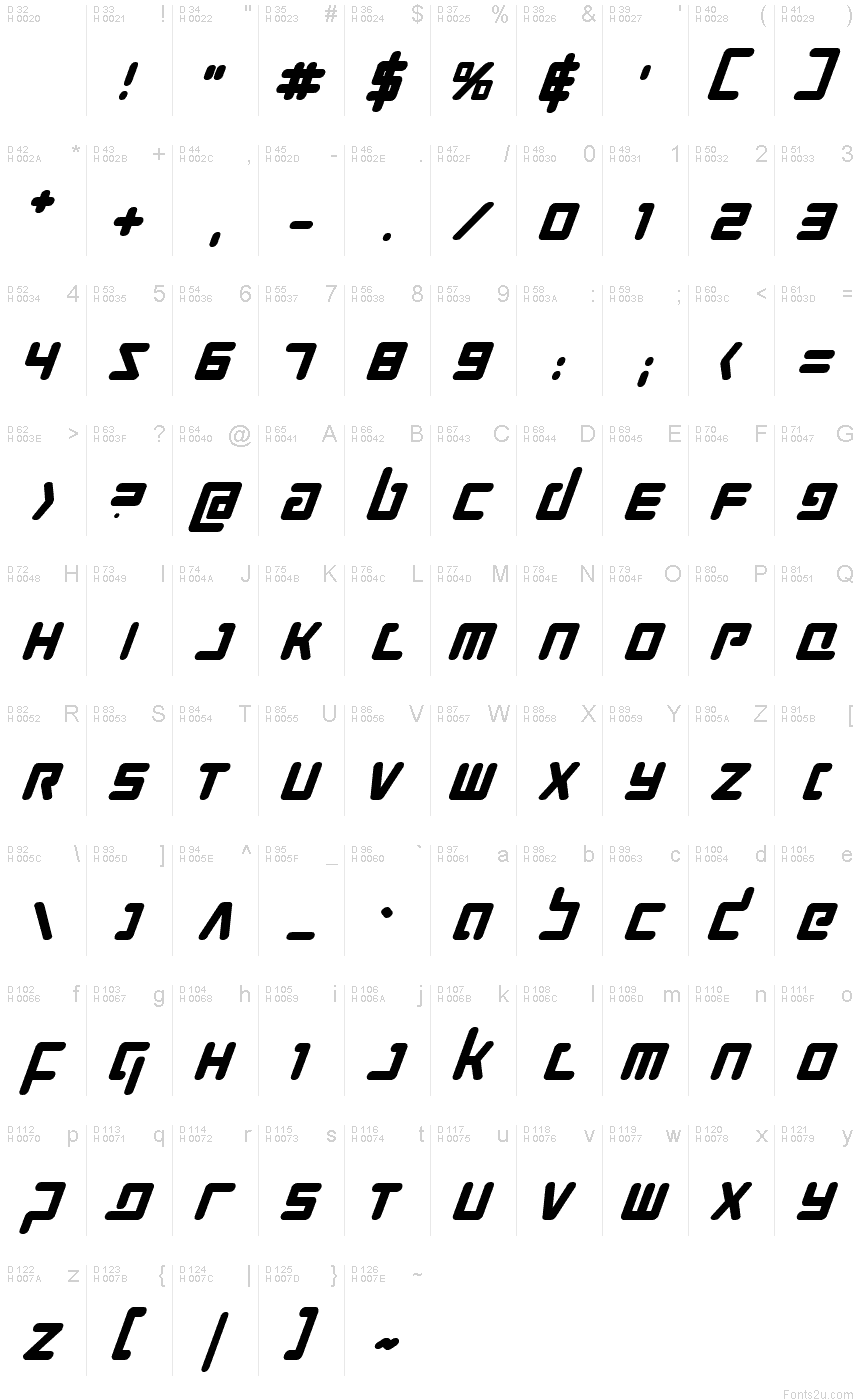
Prokofiev Bold Italic, designed by Iconian Fonts, is a free futuristic display font with a fast, low-slung silhouette. Broad strokes, rounded corners, and sharply cut inner shapes make the lettering feel engineered for speed.
Science-fiction and arcade styling make it especially convincing for game interfaces and esports branding, where the forward slant suggests motion and competition. That same streamlined construction suits motorsport posters, electronic album covers, event graphics, and merchandise built around racing, machines, or high-tech themes.
Prokofiev Bold Italic